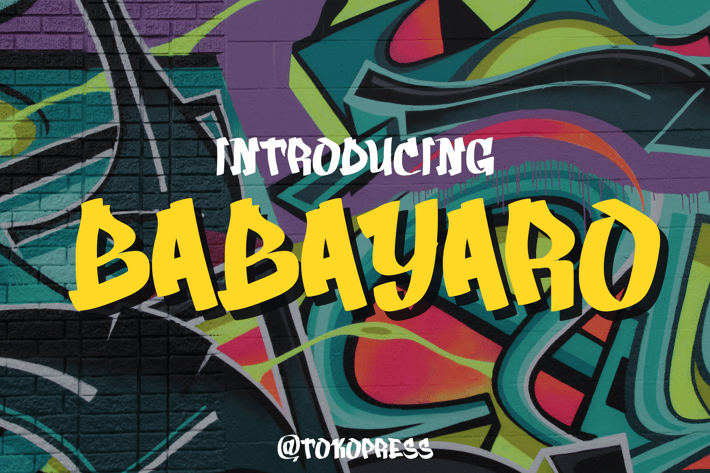
BABAYARO - graffiti font
BABAYARO- Graffiti Font
BABAYARO is a street-culture-inspired display typeface with expressive strokes, irregular contrast, and a rebellious visual rhythm—perfect for graffiti art, skateboard brands, and youth event promotions that demand raw personality and punch. The letters mimic sprayed edges and hand-drawn movement with dynamic curves, unpredictable angles, and strong urban flavor. Its vibe is bold, daring, and alive—crafted for creators who thrive in color-splashed chaos.
With a freestyle appearance and bouncy baseline, BABAYARO embodies the spirit of streetwear zines, mural art, and hip-hop posters. It channels raw expression into a usable typographic tool that turns any canvas into a statement.
From underground hip-hop covers to edgy social media campaigns, BABAYARO grabs attention and never lets go. It’s the perfect font for youth-focused branding, urban merchandise labels, music artwork, extreme sports apparel, or poster layouts that speak loud and fast. Whether you’re designing for BMX brands, art collectives, or streetwear drops, BABAYARO captures the rebellious energy and attitude that today’s youth market connects with.
Key Features :
Authentic Street Style Typography
- Urban spray-paint aesthetic with dripping curves
- Irregular baseline and freestyle shape for bold impact
- Great for posters, event flyers, skateboard decks, and branding
Unmistakable Personality
- Built for edgy layouts and expressive visual identity
- Strong rhythm, fun chaos, and versatile tone—works loud or playful
- Feels handmade but refined for pro design workflows